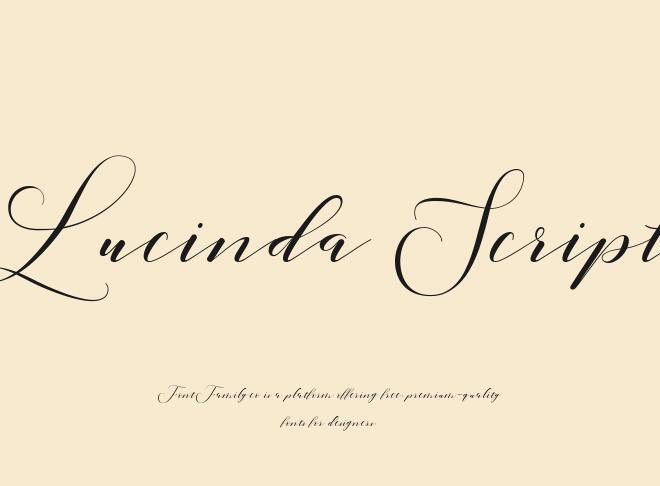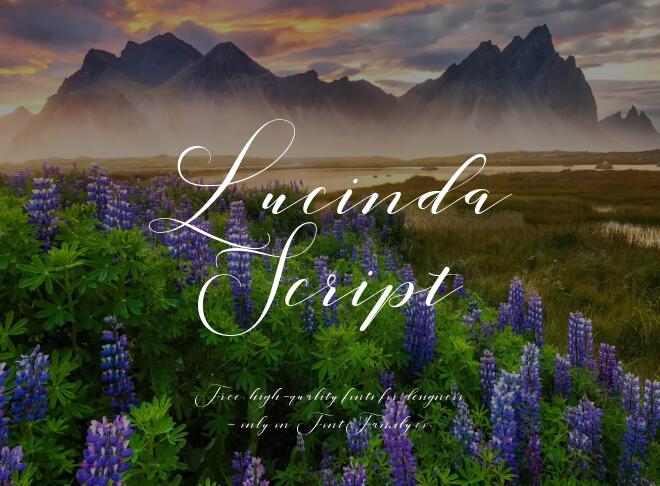
Lucinda Script Font
The Lucinda Script Font, designed by the renowned duo Charles Bigelow and Kris Holmes, is a beautiful blend of elegance and handwritten style. This font comes off as both professional and personal, making it perfect for branding, logos, and wedding invitations. It's a great alternative to fonts like Zapfino and Mistral, offering a more grounded and less flamboyant script style. The Lucinda Script Font has a unique charm that captivates its audience, making any design stand out. Its versatility makes it a must-have for designers who aim for a blend of professionalism and creativity. The font's elegant curves and strokes make it a popular choice for those seeking a stylish and sophisticated typeface. The Lucinda Script Font is not only a font; it’s a powerful tool that can bring your design to life.
Author | Charles Bigelow and Kris Holmes |